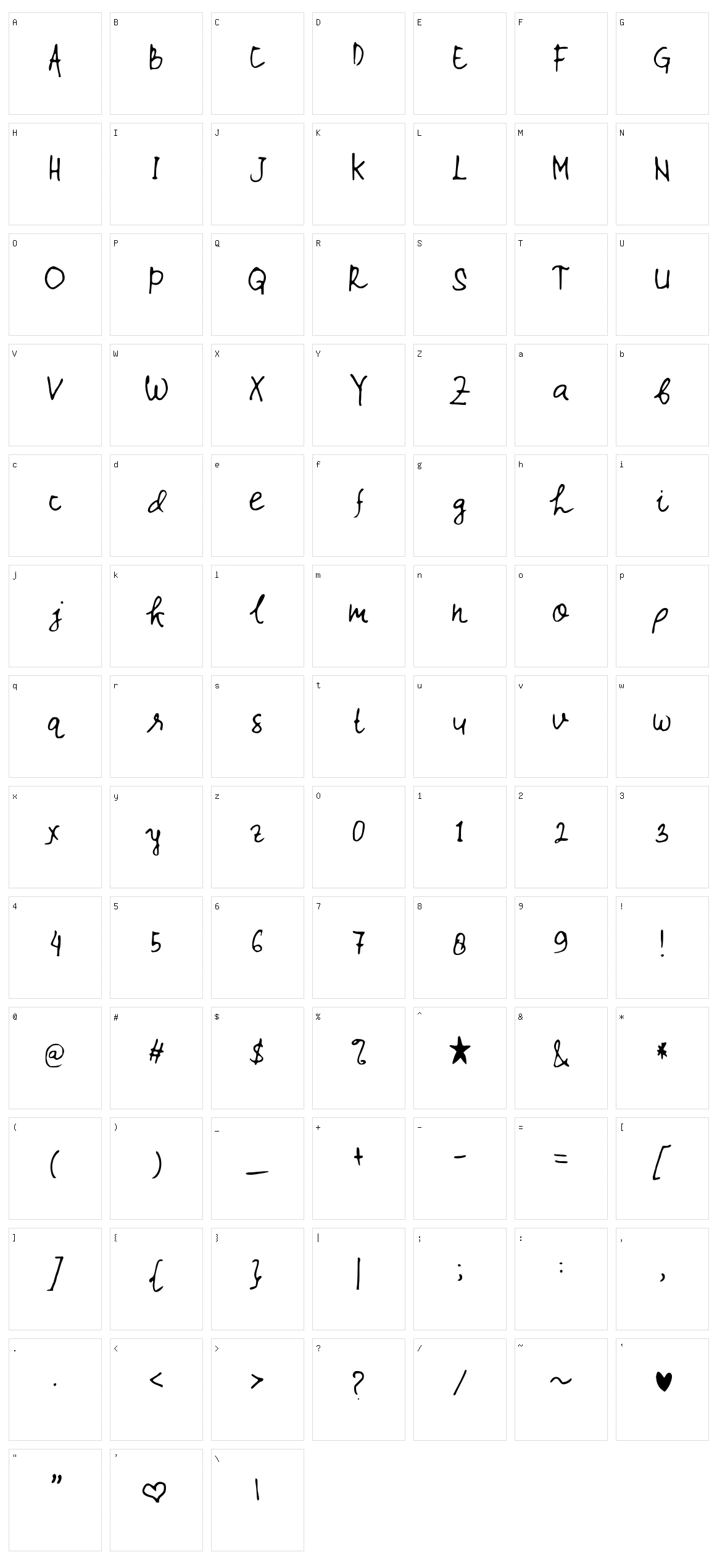
It is my second conversion attempt from real person handwriting to become digital font. Hope you like it!
Wina font is a semi cursive font that feature variable x-height and a touch of randomized curve to retain hand-made looks.
Use of proper kerning is very essential!